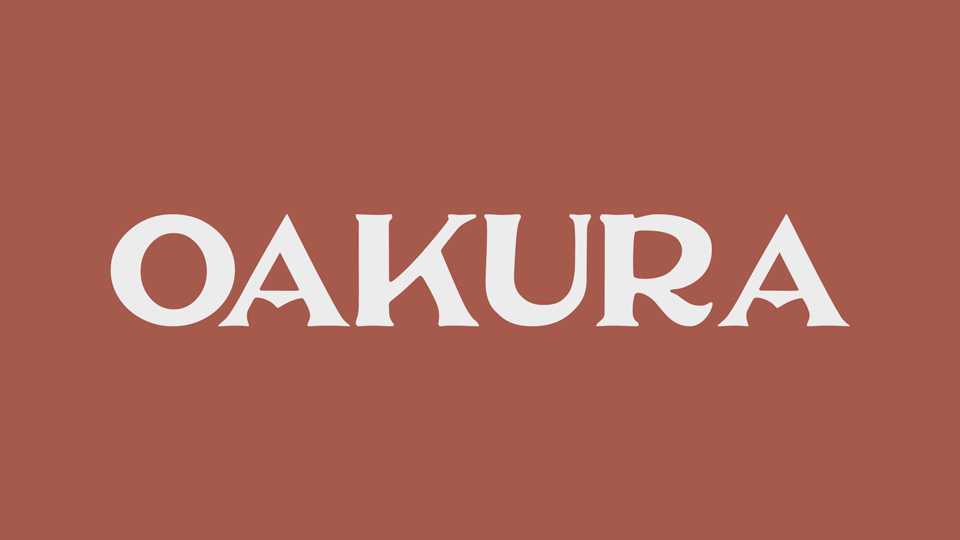
Download Oakura font, a fancy vintage serif typeface based on the sign lettering on the community hall at Oakura in Taranaki, New Zealand.
Designer: Andrew McMillan